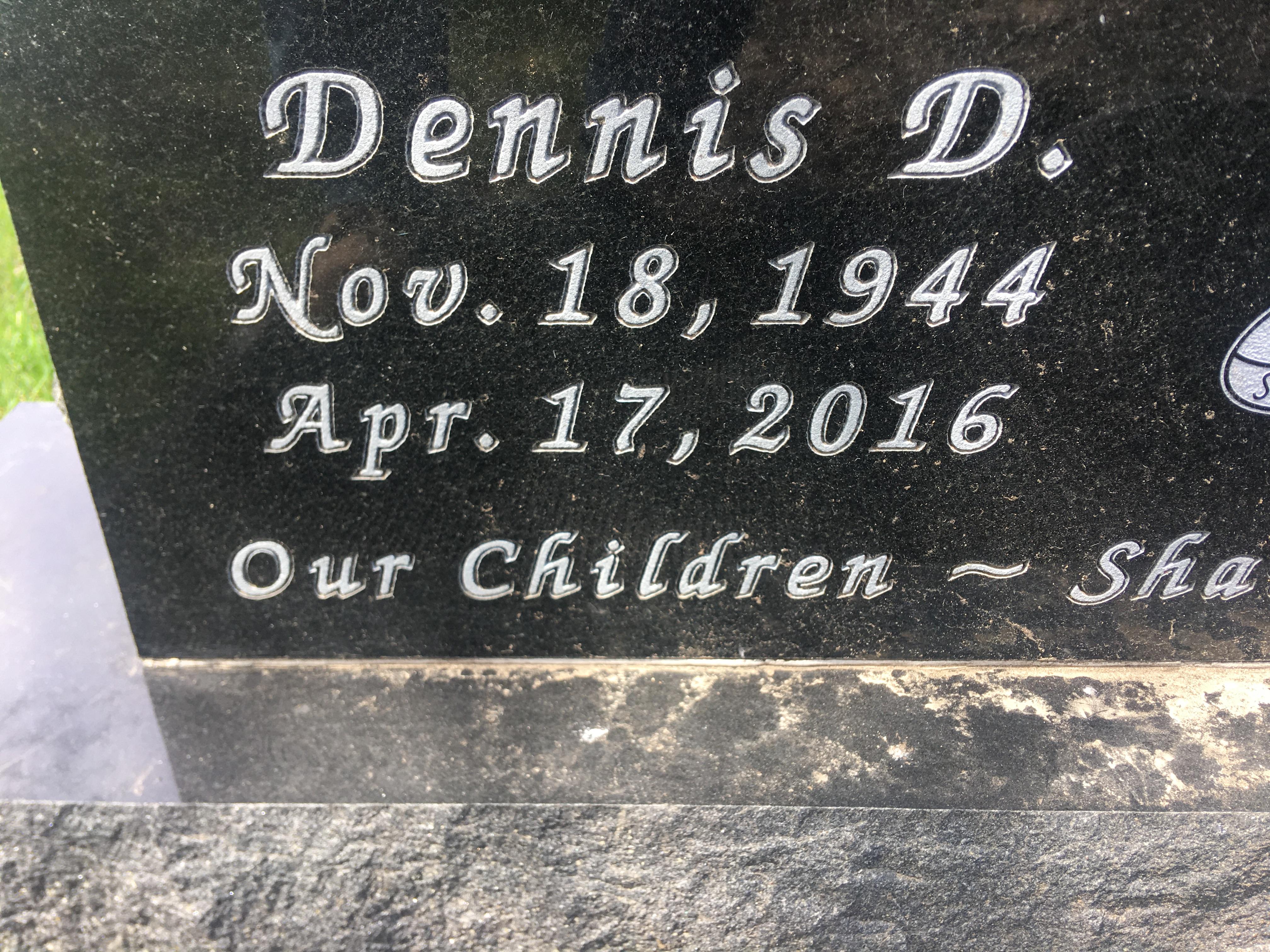
I am having trouble matching this  punctuation in  CQC Script doesn’t match and Zapf chancery the loop in the middle of the 2 isn’t wide enough.  Any ideas? Thanks!
Hello Jill, I have run into this outlined version of Zapf Chancery before, but I believe it is either a custom version or possibly one available in some monument software I am not aware of. I have checked it against Monu-Cad, Gerber, Cochran’s, Flexi, Craftech, DesignMart, The Drafting Shoppe, Creative Premier, CGX, and SignLab with no luck.